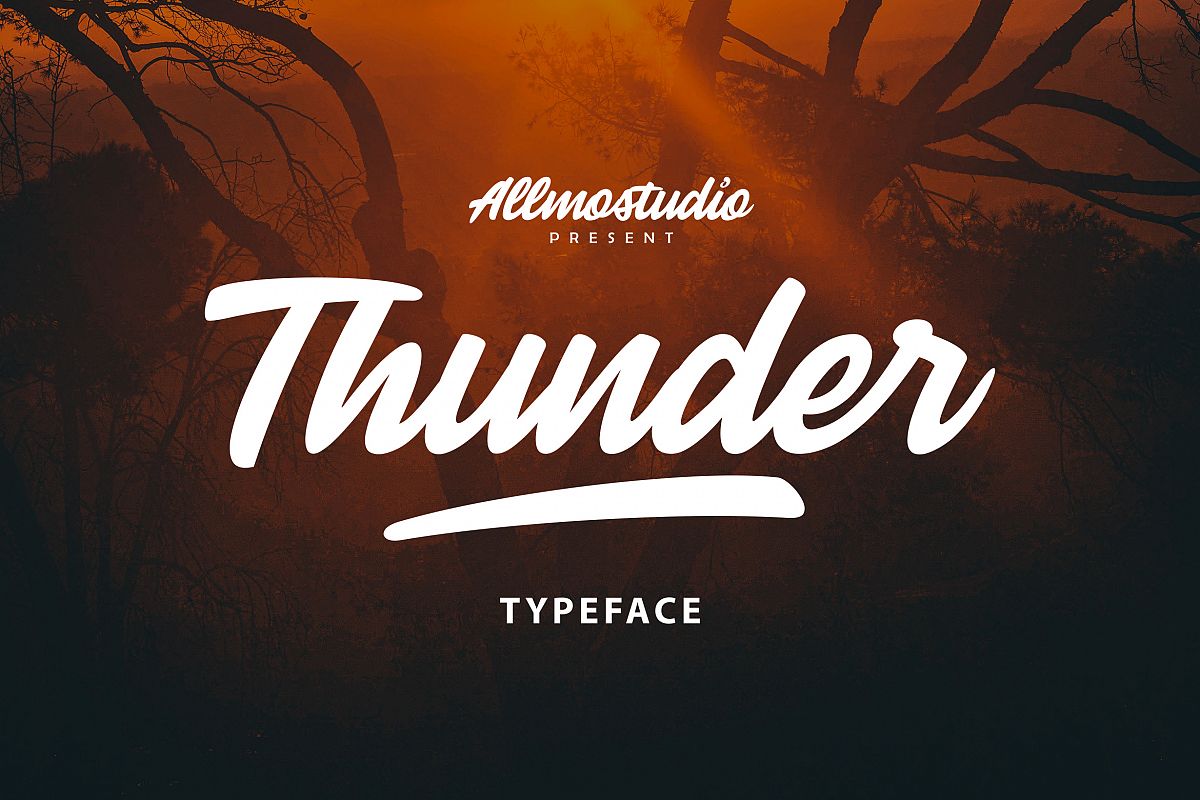
Thunder Font was made to be a good and beautiful font, curves and lines are so soft which makes this font look good. Really befit to all your design project, like product logo, food brand logo and much more.. Thunder font also supported with extra character that include : standart ligatures, swashes, stylistic set 01 that will help you get beautiful style with your own creation.
- Thunder Standart
- Thunder Swash
- Thunder Rough
- Stylistic Set